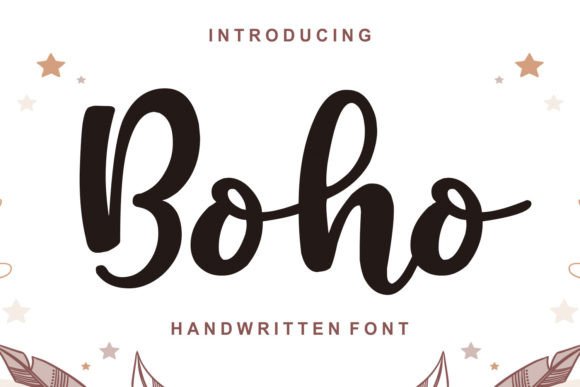
Boho Font
Introducing Boho font – a captivating blend of script handwriting with a whimsical touch, perfect for infusing your projects with the spirit of Easter, Cricut crafts, embroidery endeavors, Thanksgiving festivities, and the cozy warmth of Christmas. Each character in this font is adorned with beginning and ending washes, lending an artistic flair to your designs. Whether you’re crafting personalized greetings, adding a touch of charm to your holiday decorations, or embarking on a lettering adventure, Boho font is your versatile companion, ready to elevate your creative endeavors to new heights.